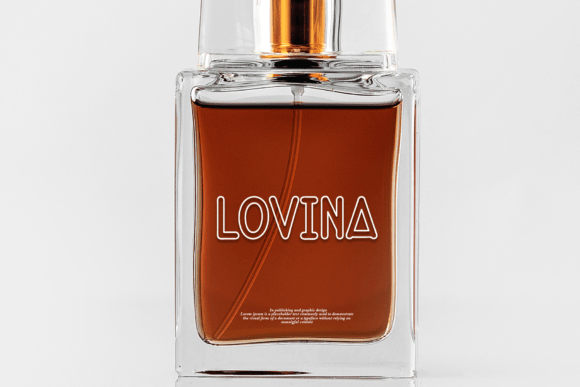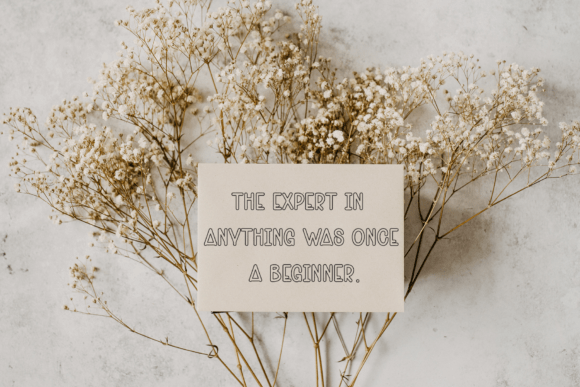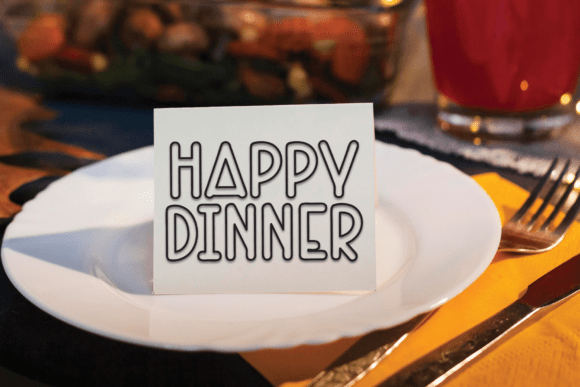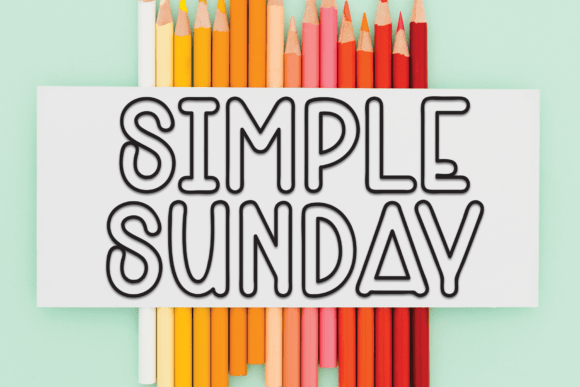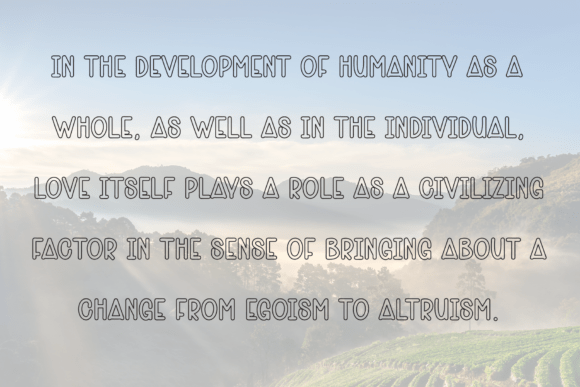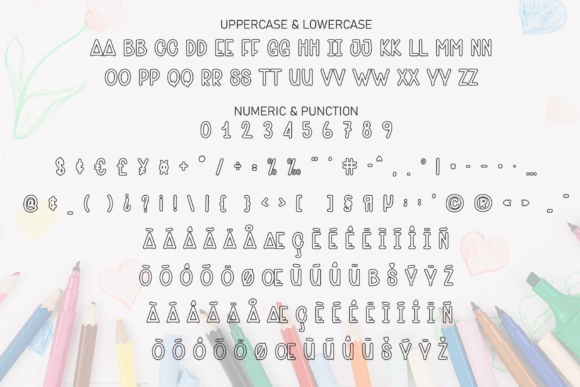
Crayon Teacher Font – Free Download
Introduction to Crayon Teacher Font
Crayon Teacher is a sweet and friendly handwritten font.
Key Features of Crayon Teacher Font
Why Choose Crayon Teacher Font?